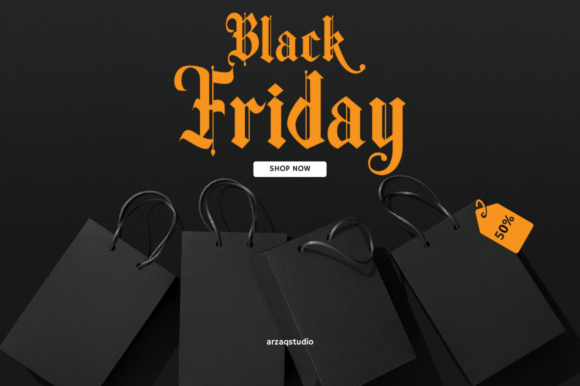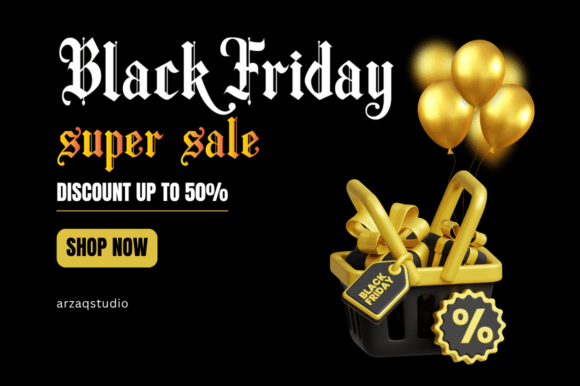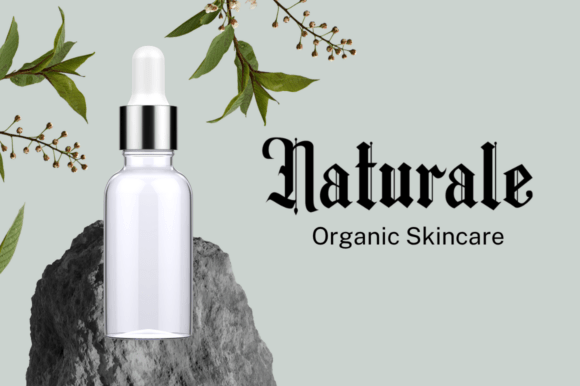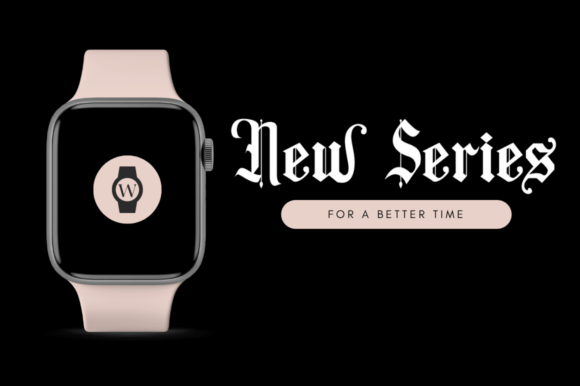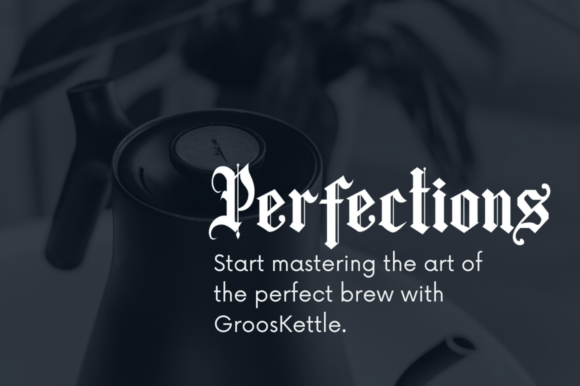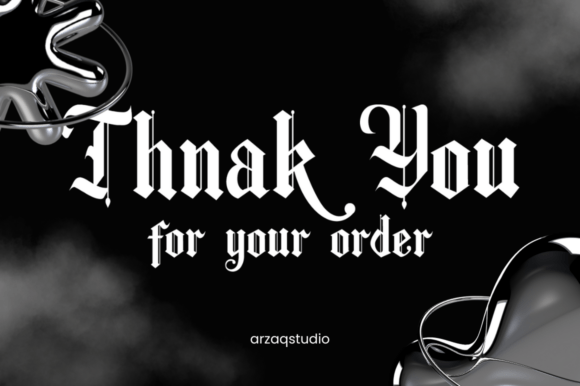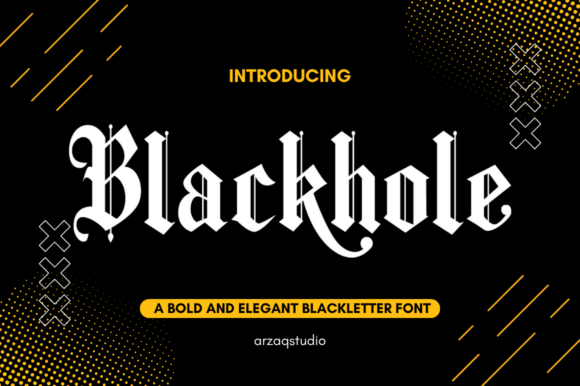
Unleash the Power of Blackhole Font: A Bold and Elegant Blackletter Typeface
In the world of typography, few fonts evoke the same level of drama and sophistication as Blackhole, a bold and elegant blackletter font that seamlessly blends classic gothic style with modern strength. With its sharp edges and ornamental details, Blackhole is the perfect choice for designers and crafters looking to add a powerful and timeless touch to their projects.
The Essence of Blackhole Font
Blackhole font is a masterful fusion of traditional gothic typography and contemporary design elements. Its bold, sharp edges and intricate details evoke the classic blackletter fonts of the past, while its modern aesthetic ensures it remains fresh and relevant. This unique blend of old and new makes Blackhole an incredibly versatile font, suitable for a wide range of applications.
Design Applications for Blackhole Font
Blackhole’s dramatic and elegant appearance makes it an ideal choice for various design projects, including:
- Logos and Branding: Create eye-catching logos and branding materials that exude authority, mystery, and sophistication.
- Tattoos and Body Art: Design stunning tattoos and body art that showcase the beauty and elegance of Blackhole.
- Posters and Flyers: Craft bold and attention-grabbing posters and flyers that demand attention.
- Labels and Packaging: Add a touch of drama and sophistication to product labels and packaging.
- Vintage Designs: Create stunning vintage-inspired designs that evoke a sense of nostalgia and timelessness.
- Dark-Themed Artwork: Add a powerful and ominous touch to dark-themed artwork, such as album covers and horror-inspired designs.
- Metal Band Covers: Design striking metal band covers that reflect the energy and intensity of the music.
- Medieval-Inspired Branding: Create authentic and captivating medieval-inspired branding materials that transport your audience to another era.
Why Choose Blackhole Font?
Blackhole font offers a unique combination of characteristics that make it an attractive choice for designers and crafters:
- Authority and Sophistication: Blackhole exudes authority, mystery, and timeless sophistication, making it perfect for designs that require a sense of gravitas.
- Versatility: Blackhole is incredibly versatile, suitable for a wide range of design applications and styles.
- Elegance and Drama: Blackhole’s bold and elegant appearance adds a touch of drama to any design, making it perfect for creating eye-catching and memorable materials.
- Timeless Appeal: Blackhole’s classic gothic style ensures it remains timeless and relevant, even in modern design contexts.
Tips for Using Blackhole Font Effectively
To get the most out of Blackhole font, consider the following tips:
- Pair with Contrasting Fonts: Combine Blackhole with contrasting fonts to create visual interest and hierarchy.
- Experiment with Colors: Try pairing Blackhole with bold and vibrant colors to add depth and dimension to your design.
- Pay Attention to Spacing: Ensure adequate spacing between letters and lines to maintain clarity and legibility.
- Use it Sparingly: Use Blackhole sparingly to create emphasis and add drama to specific design elements.
Blackhole font is a powerful and elegant blackletter typeface that offers designers and crafters a unique combination of classic gothic style and modern strength. Its sharp edges, ornamental details, and timeless appeal make it perfect for creating eye-catching logos, tattoos, posters, labels, and vintage designs. Whether you’re working on dark-themed artwork, metal band covers, or medieval-inspired branding, Blackhole adds a powerful and dramatic touch to every project. With its versatility, elegance, and authority, Blackhole font is an excellent addition to any designer’s toolkit.